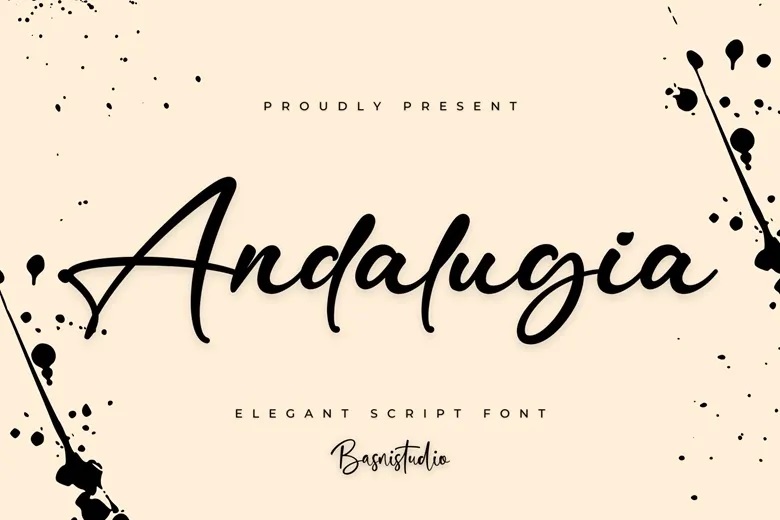
Andalugia Font
Andalugia is a modern handwritten script font that gives everything including branding, social media, invitation, and packaging that extra elegant, versatile touch. Great to use on logos, quotes, greeting cards and so on. The work of pen hands to have the effect of a real approach. Compatible with every major design software.
You can use Andalugia is a script font to create a great brand identity or to design an on-the-spot logo: you will have the creative advantage in your favor.
Andalugia Handwritten Script Font